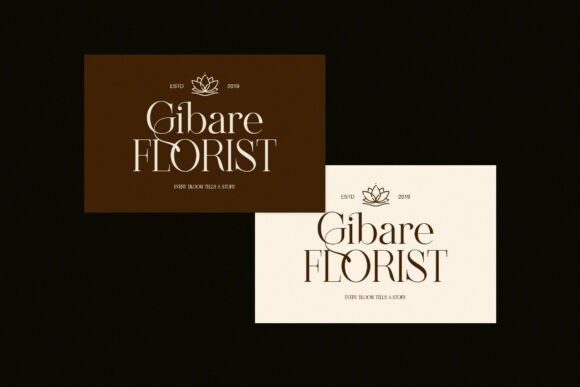
Brilion Font
Brilion Font is a graceful typeface made to blend timeless beauty with modern simplicity. It offers smooth lines, gentle curves, and a clean structure that adds luxury to any design. Because of its balanced look, this serif font fits beautifully in branding, wedding stationery, magazines, and product packaging.
Every letter in Brilion has a natural rhythm that feels soft and polished. The smooth flow between thin and thick strokes makes it elegant yet easy to read. In addition, the subtle contrast gives it personality without looking heavy. Therefore, it works well for both long text and big titles.
Brilion includes uppercase and lowercase letters, numbers, punctuation, and stylish alternates. It also features ligatures and multilingual support, so you can use it for many creative projects. As a result, designers can add a touch of class while keeping their work simple and clear.